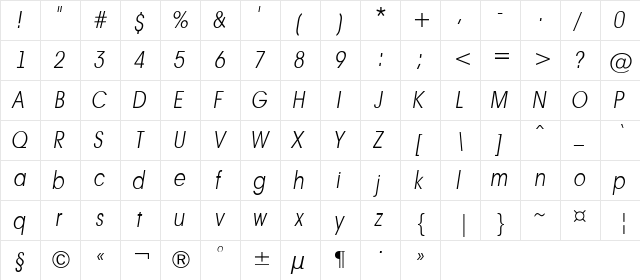
a_AvanteLtNr ThinItalic
Design Context for a_AvanteLtNr Typeface
a_AvanteLtNr takes a measured approach to typography — its balanced proportions and neutral character make it a reliable workhorse for both digital and print work. Its italic angle brings a sense of urgency and motion to the letterforms. The delicate stroke weight brings airiness and refinement to layouts.
Pro Tip: Use a_AvanteLtNr for emphasis, pull quotes, and subheadings where its slanted energy can add rhythm to the layout.